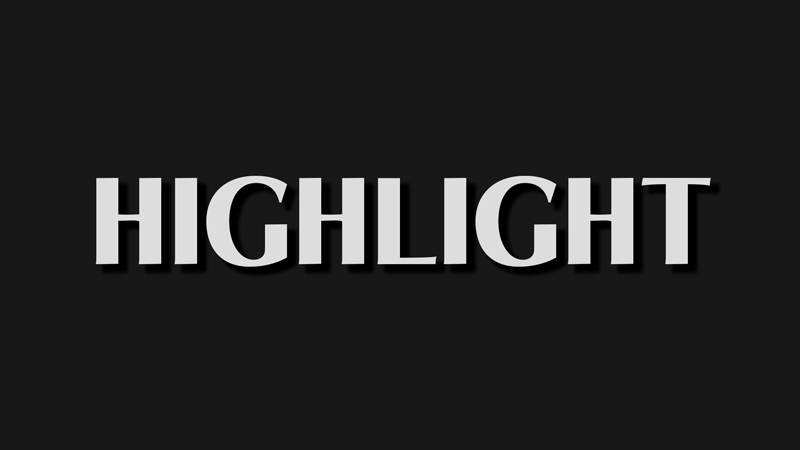
Font name: | LT Highlight |
Author: | Daniel Lyons |
Note by Daniel Lyons | |
Another titling font based on not only the steel brush alphabet design but upon the title cards set in the 50's. Part of LyonsType Classics. |